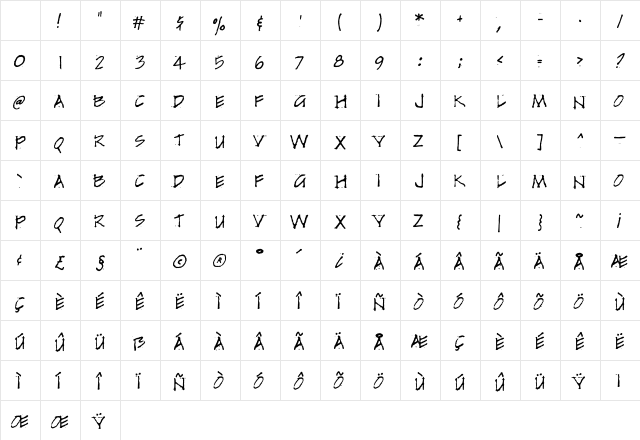
Complete TwoByFour Regular glyph index. Displaying only characters natively supported by TwoByFour Regular font.
TwoByFour is a composed and adaptable typeface that performs quietly and consistently across a wide range of design contexts.